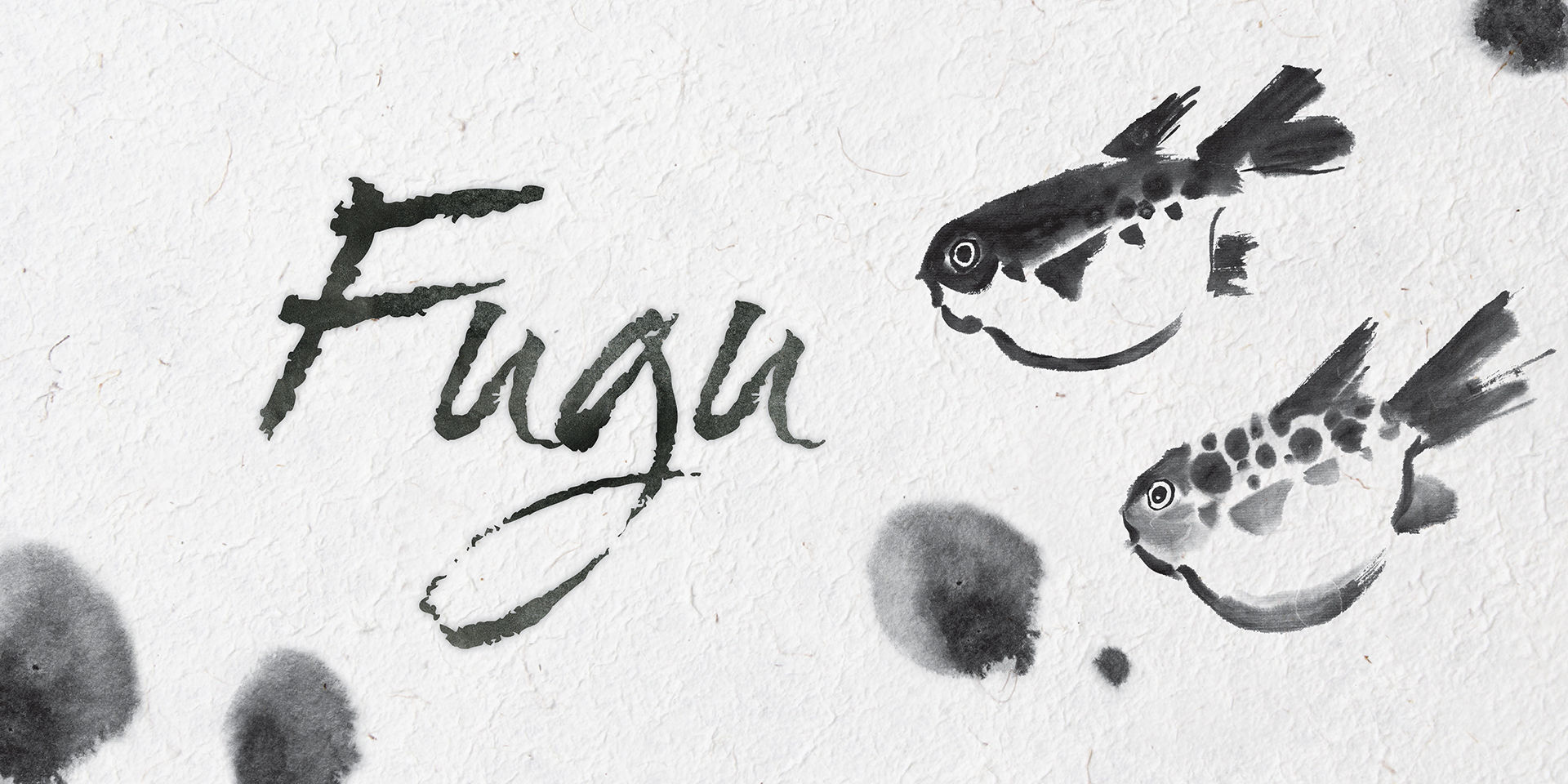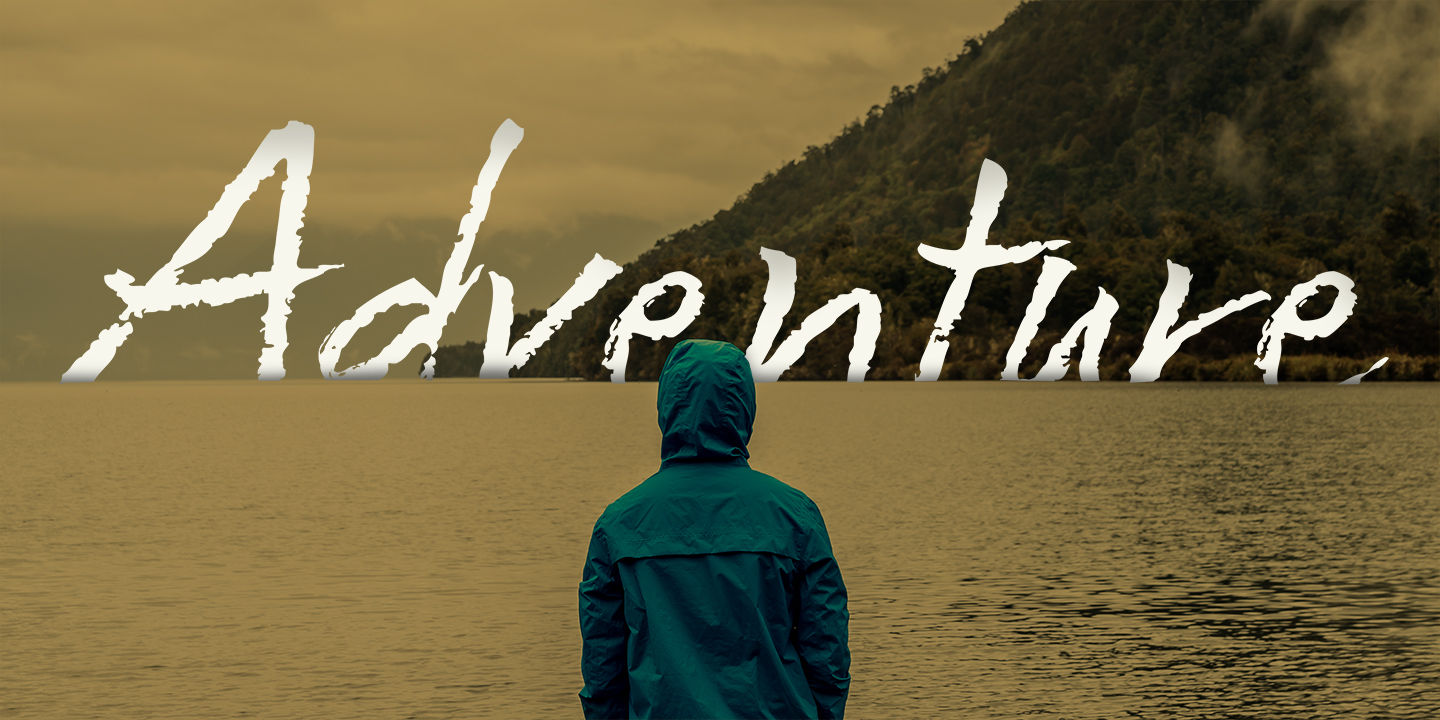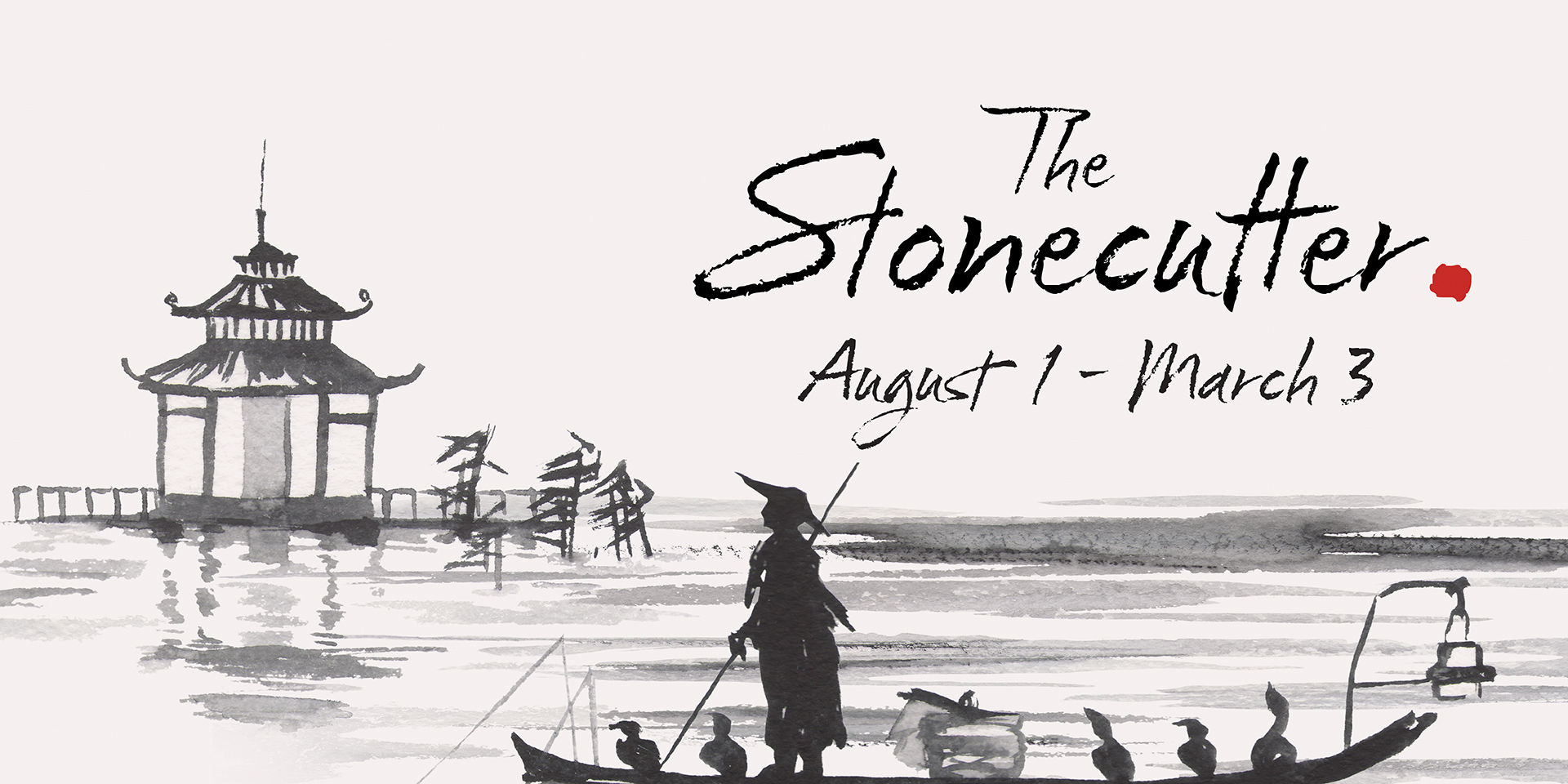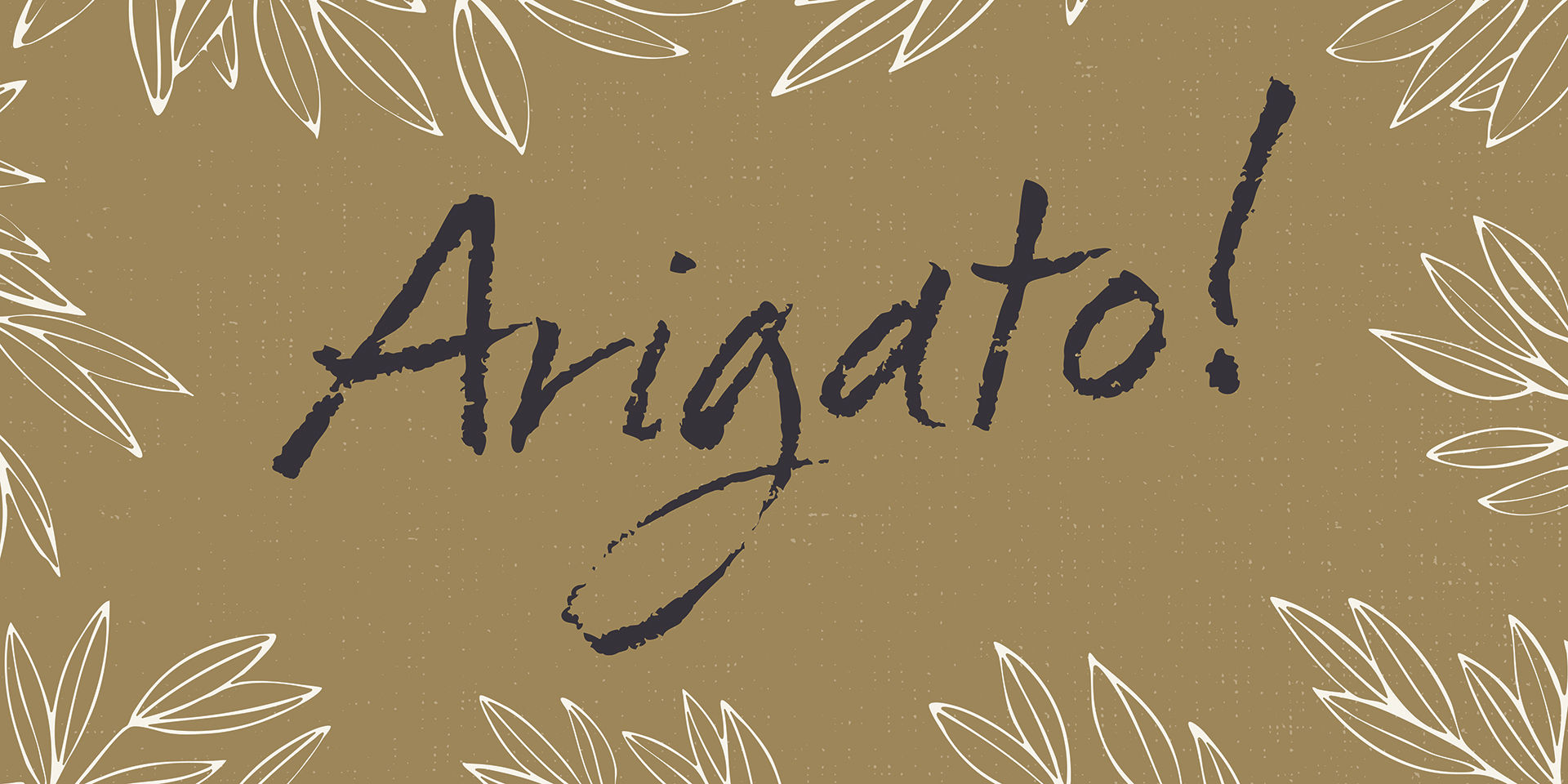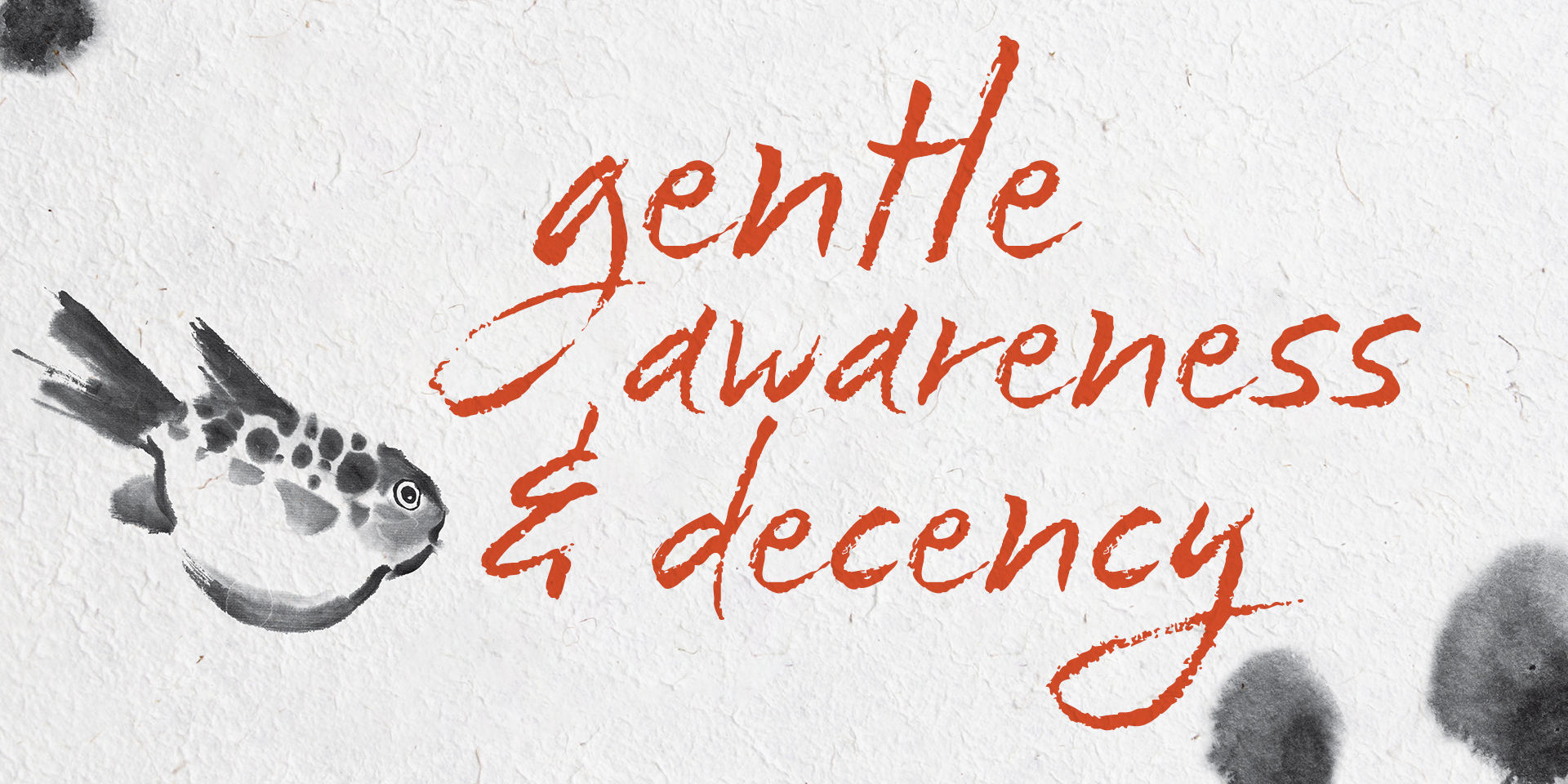
Fugu
Standard Ligaturesliga
Swashswsh
Stylistic Alternatessalt
When Baka and Baka Too did very well commercially (Baka was named the Best Cursive Rough Script in 2005), I shied away from doing rough, handwritten scripts in fear as being seen as a one-trick-pony. A few years have passed and some early sumi-e brush ‘doodles’ kept appealing to me. I initially thought this new font would just fall under the Baka mantle and just become a new sibling, but as brush hit paper over and over again, the letters took on a different personality from Baka.
This new font was turning out to be far more expressive, smooth and rough, tasty but sticky. This dichotomy demanded a new name. The rough and smooth texture suggested the name Fugu—oddly delicate while rough and functional.